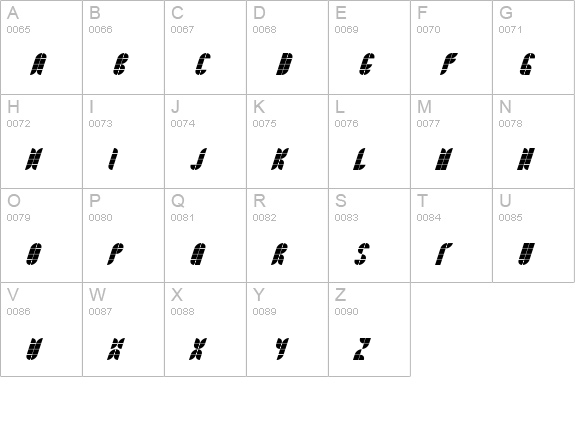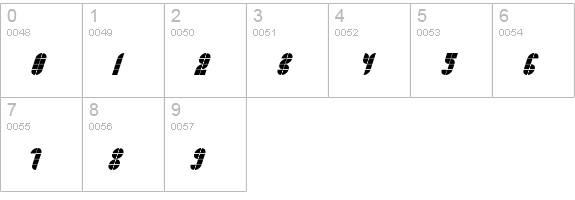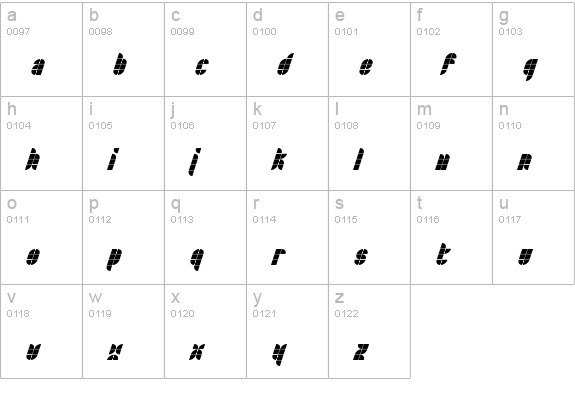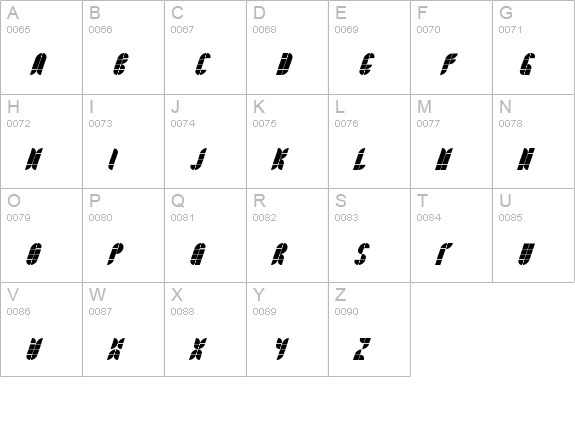
Introducing Bath NormalItalic, a sleek and modern typeface perfect for adding a touch of sophistication to your designs. This elegant font features gentle slanting and clean lines, making it ideal for a wide range of projects, from branding to editorial design. Bath NormalItalic exudes a sense of refinement and style, making it a versatile choice for both professional and creative endeavors. Whether you're designing a logo, creating a brochure, or crafting a website, this font will add a touch of class to your work. The best part? Bath NormalItalic is available for free download at FontsMarket.com. So why wait? Elevate your designs with this exquisite font today!